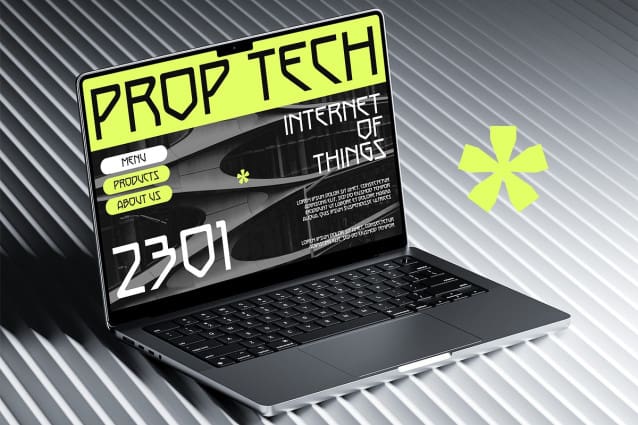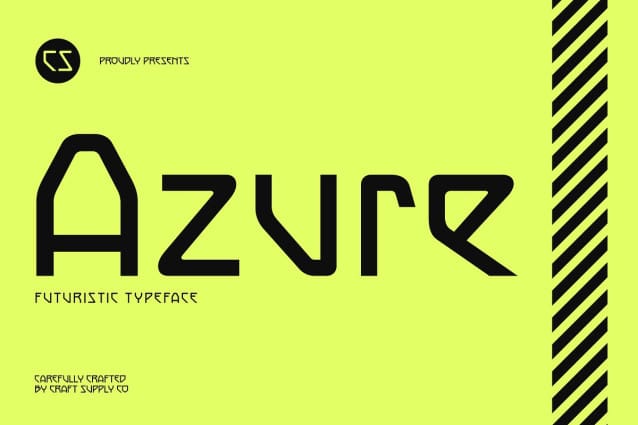
CS Azure Font
CS Azure Font – Futuristic Font is a modern display font that features sleek, cutting-edge letterforms that embody a sense of innovation and advanced technology. Its design incorporates sharp lines and geometric shapes, creating a modern, dynamic look that captures the essence of futuristic design.
Sharp Lines and Dynamic Appearance The sharp, precise lines of CS Azure enhance its futuristic appeal, offering a bold and progressive style. This dynamic appearance makes it ideal for projects aiming to convey a forward-thinking vibe, whether in sci-fi themes, tech branding, or contemporary digital designs.
Ideal for Sci-Fi and Tech Branding Perfect for sci-fi themes and technology-related projects, CS Azure provides a visually striking presence. Its modern design ensures that it stands out in tech branding and digital applications, engaging audiences with its innovative and advanced aesthetic.
Enhance Visual Impact with a Progressive Style CS Azure enhances visual impact through its progressive and bold style. It’s designed to captivate and engage, making it an excellent choice for any project that seeks to push the boundaries of modern design and convey a cutting-edge vibe.